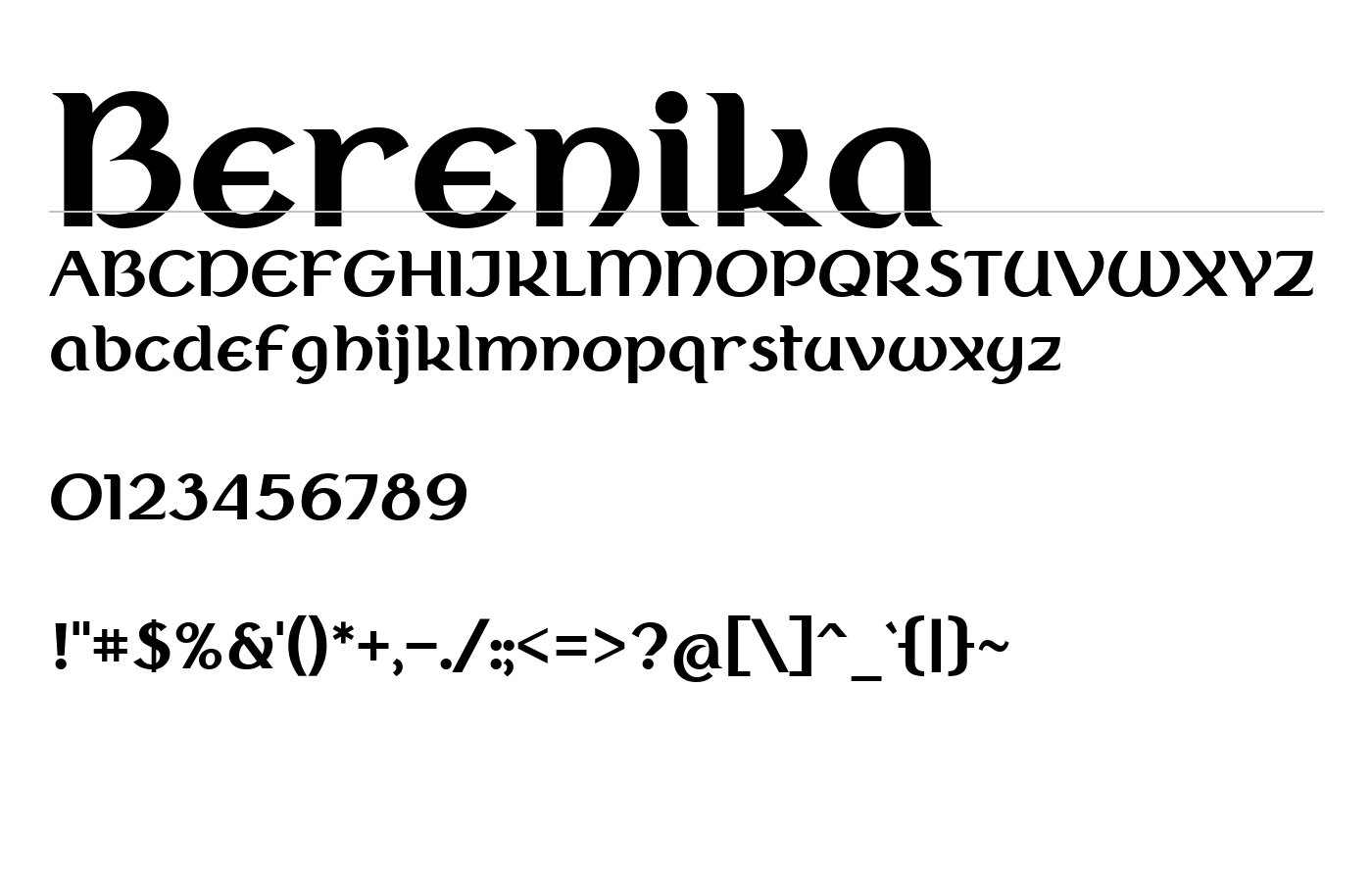
Berenika is a distinctive serif font with a modern twist, featuring bold weight and unique, artistic letterforms that blend sharp and soft edges. Its high contrast strokes and elegant curves give it a sophisticated, stylish personality, making it ideal for fashion branding, editorial headlines, and luxury packaging where a strong, memorable impression is needed. With its creative yet readable design, Berenika works well when you want to convey both elegance and originality.
Berenika Font
About Berenika Font
| Font family | Berenika Font |